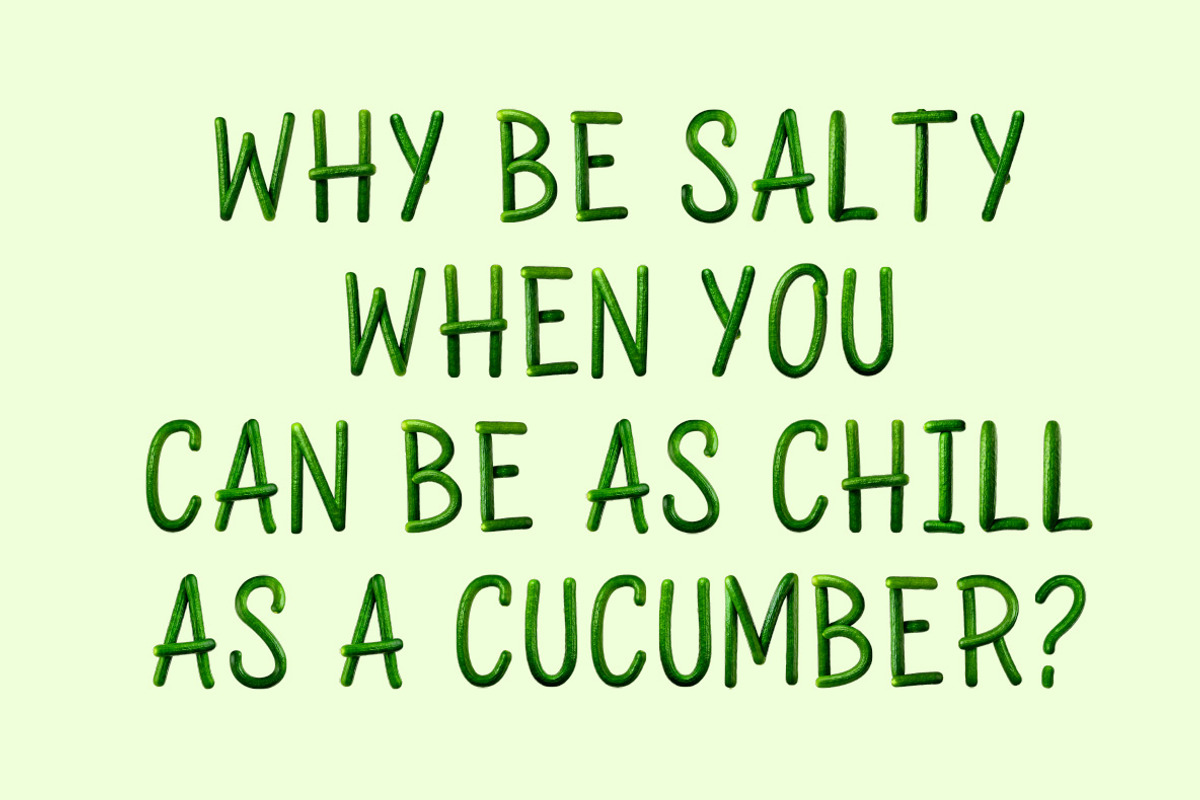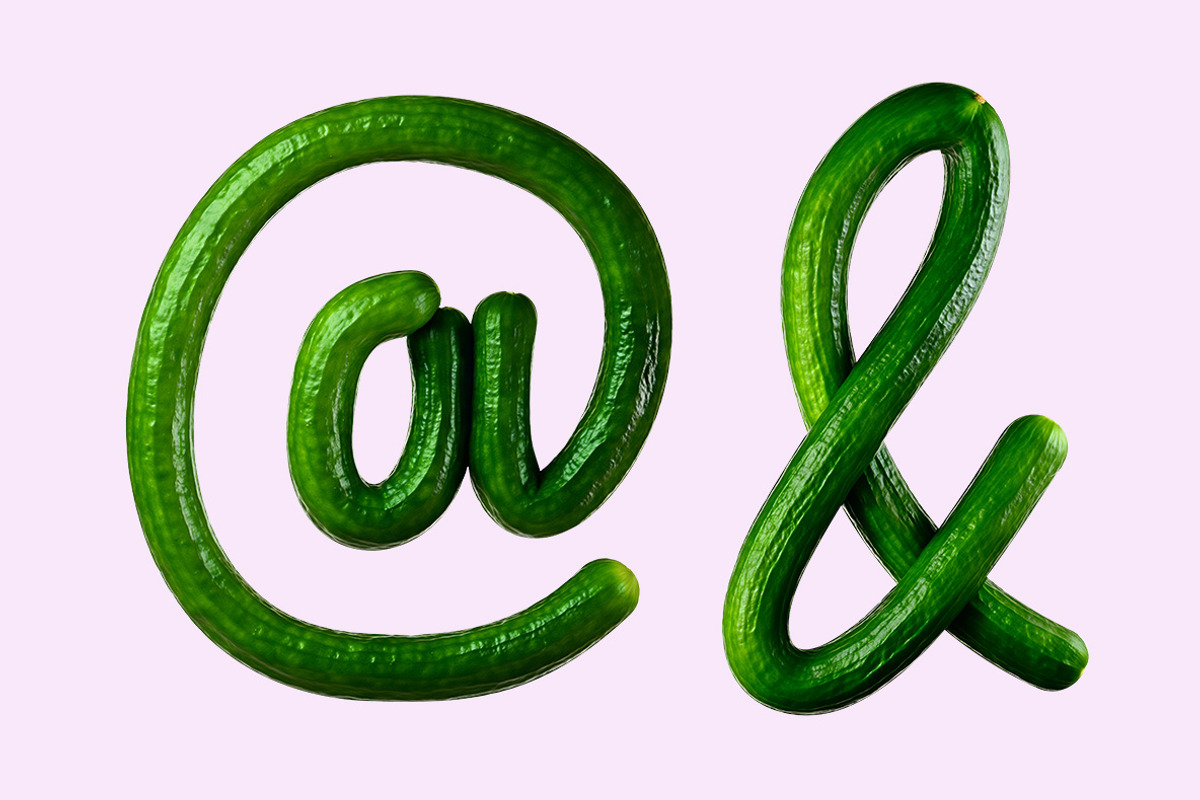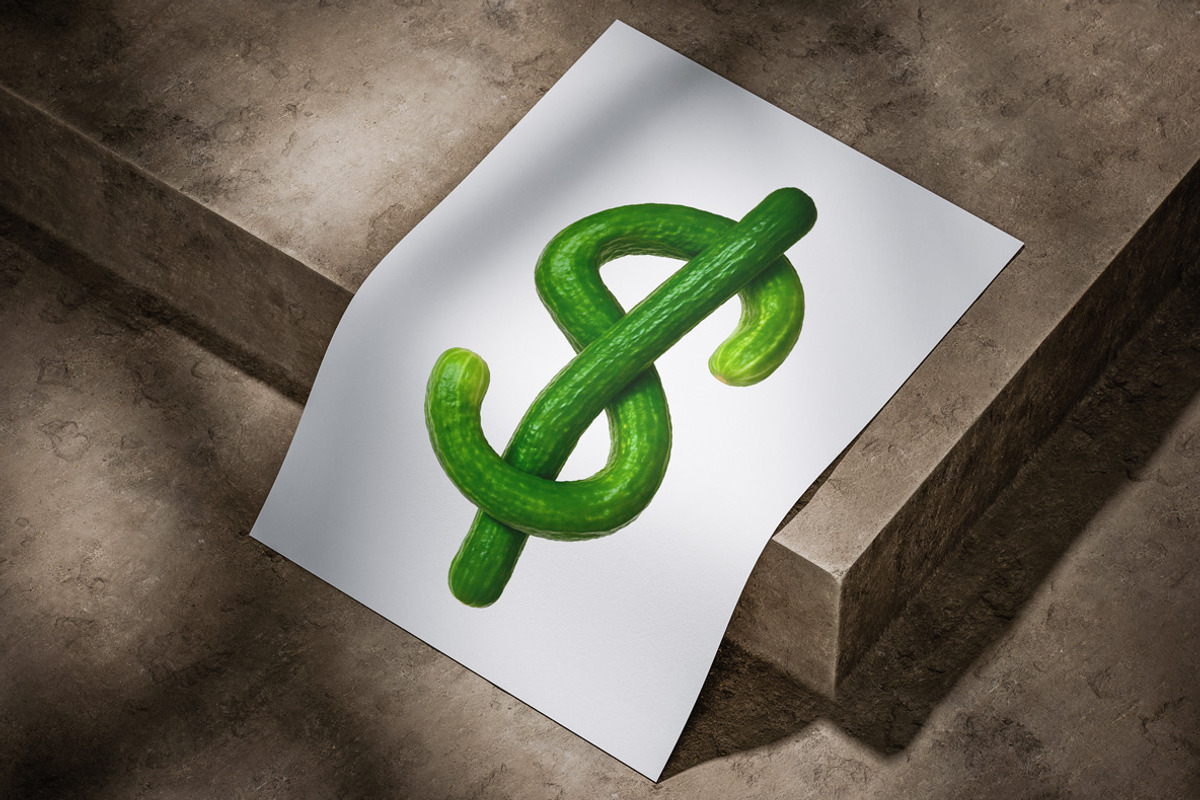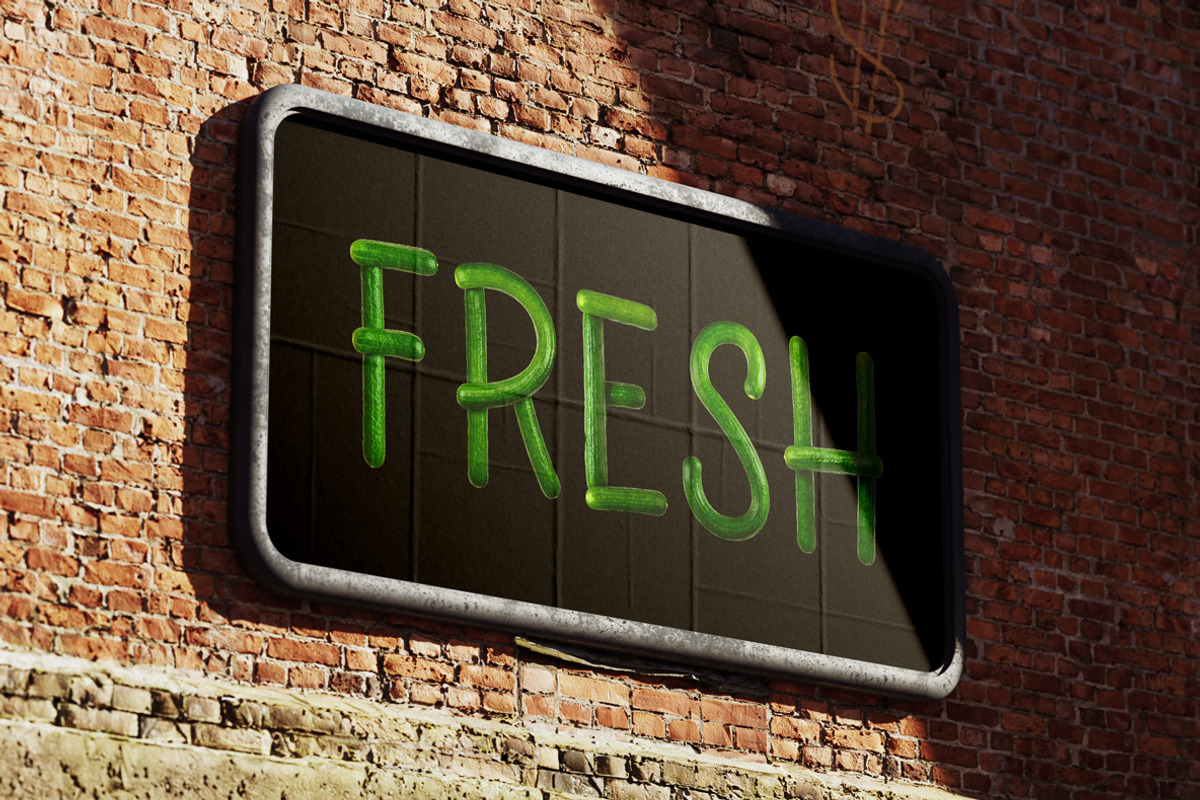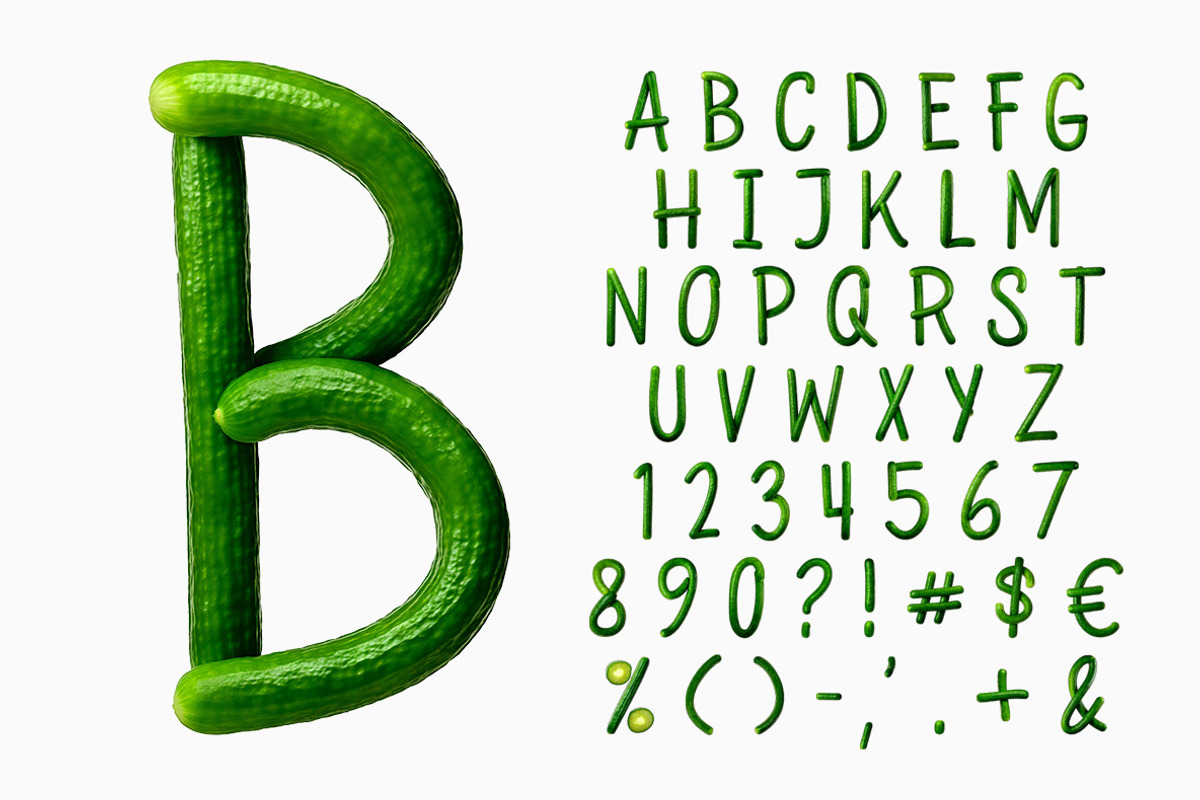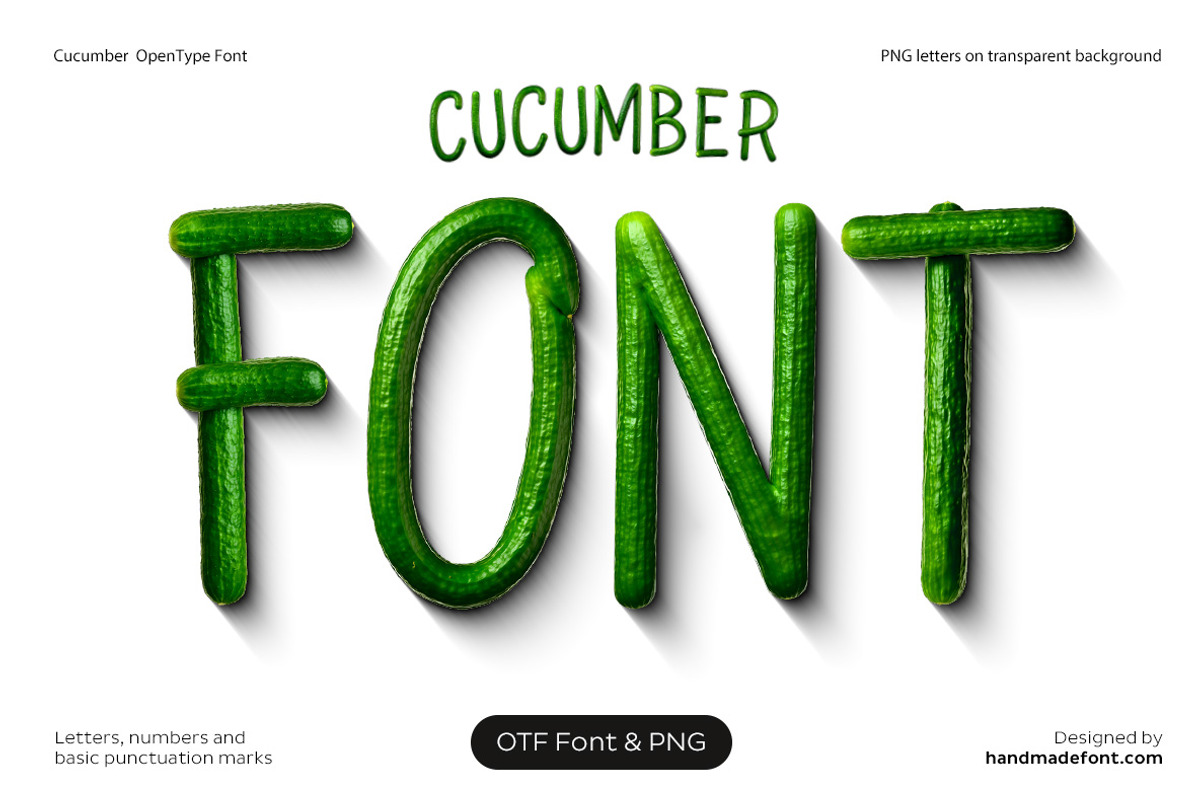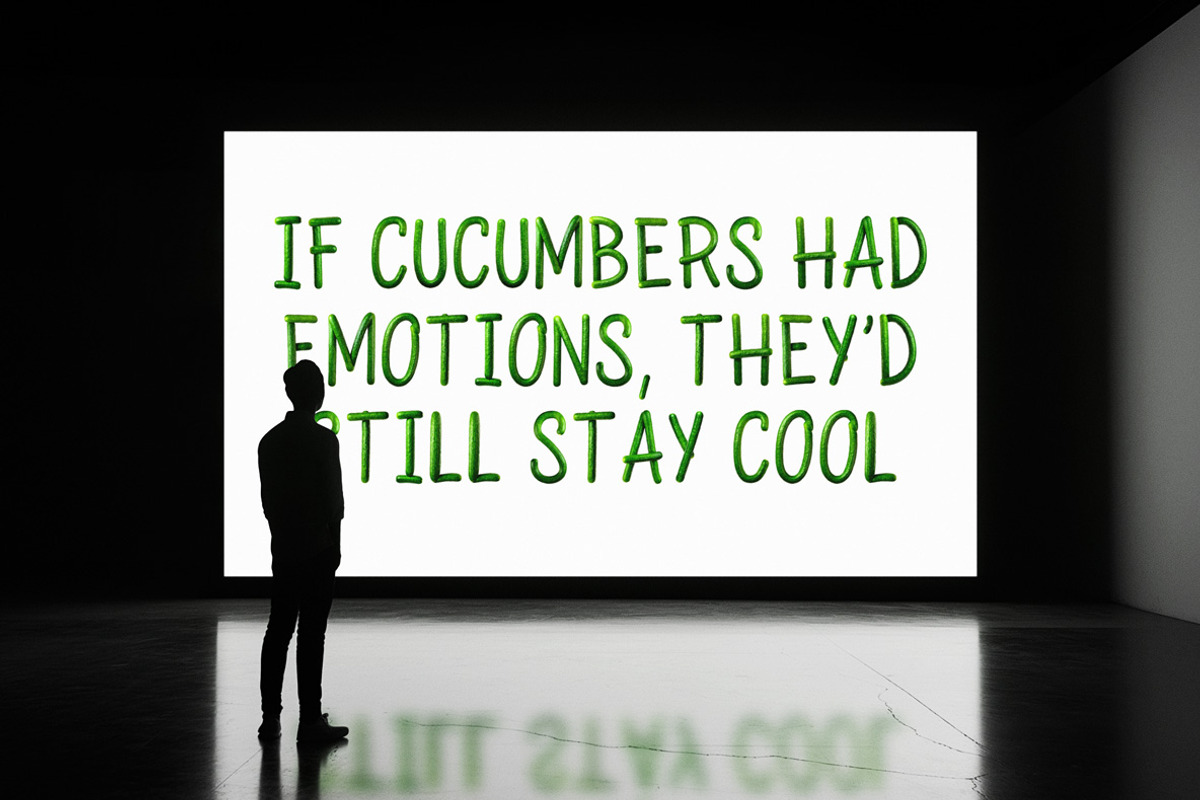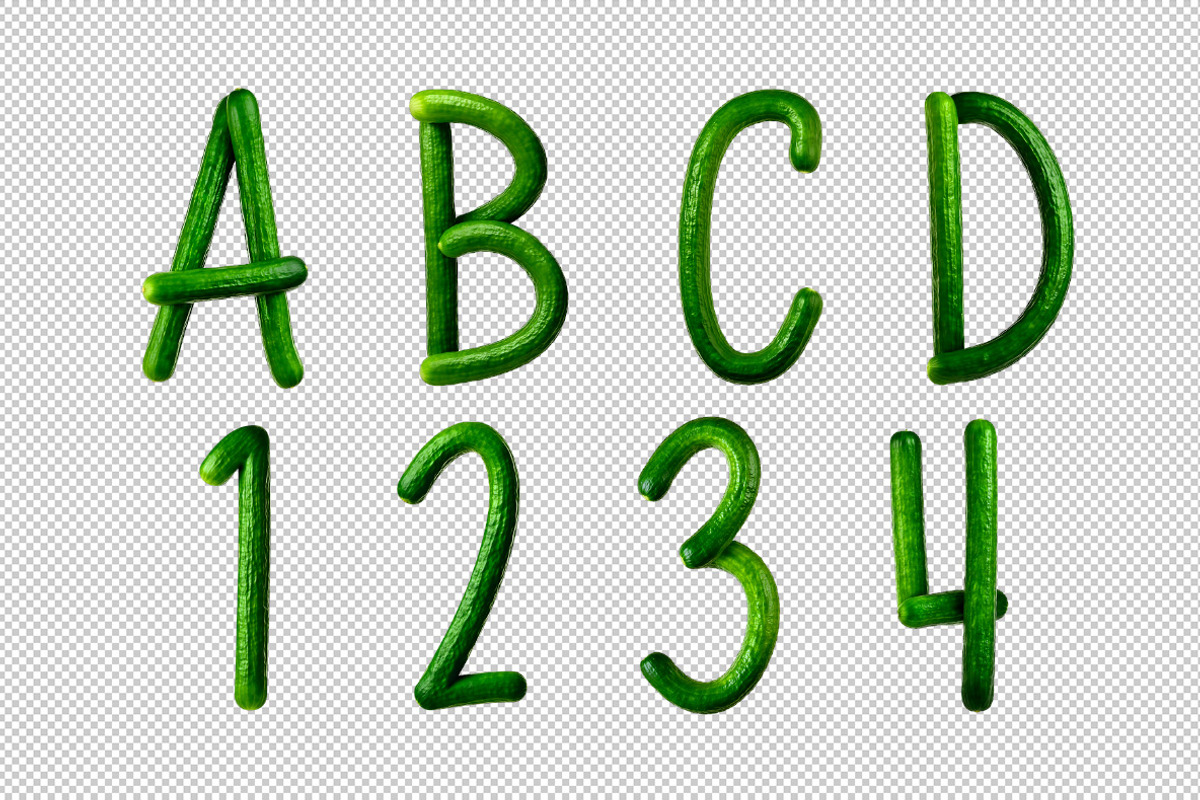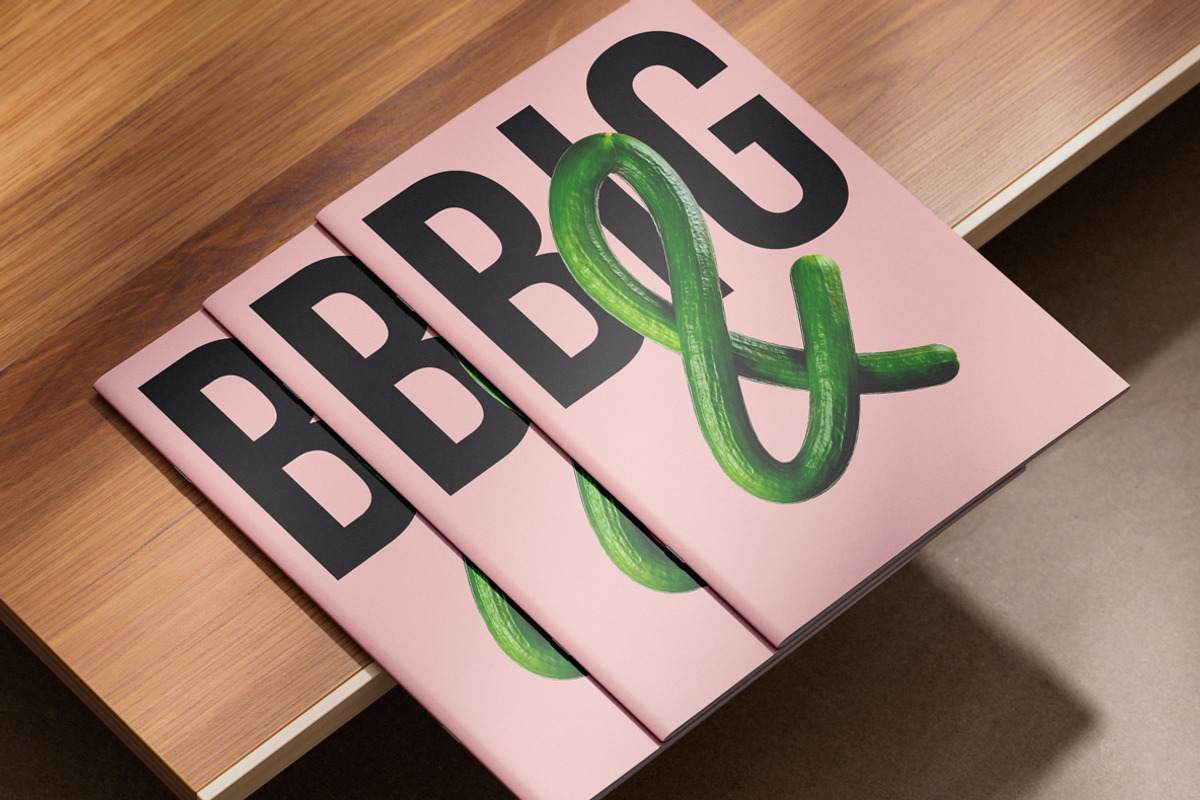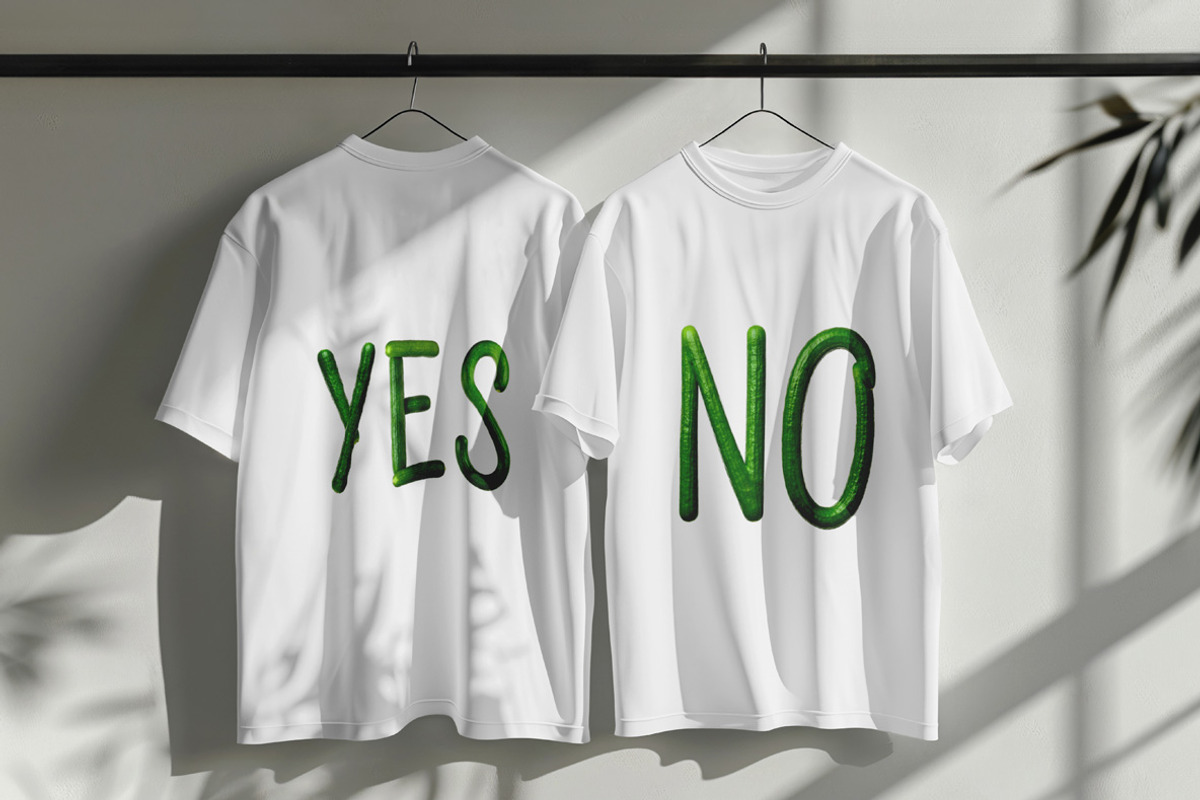
Cucumber Font
Green and fresh, the Cucumber Font is a playful and creative typeface where every letter is crafted from cucumber-inspired designs. Perfect for adding a quirky touch to your projects, this cucumber alphabet brings a fun, garden-fresh vibe to typography. Whether you need cucumber lettering for a food-related theme, a nature-inspired design, or just a unique twist on classic fonts, this cucumber typography delivers charm and originality. The cucumber font features detailed, lifelike cucumber textures, making it ideal for posters, invitations, social media graphics, and more. Bring your ideas to life with cucumber letters that are as crisp and cool as their namesake. This cucumber alphabet is a refreshing choice for creative, lighthearted projects with a hint of whimsy!
A high definition OpenType Font. Contains uppercase characters, numerals and basic punctuation. (Draw height roughly 800 pixels). All letters and glyphs that comprises this font you can see on the preview.